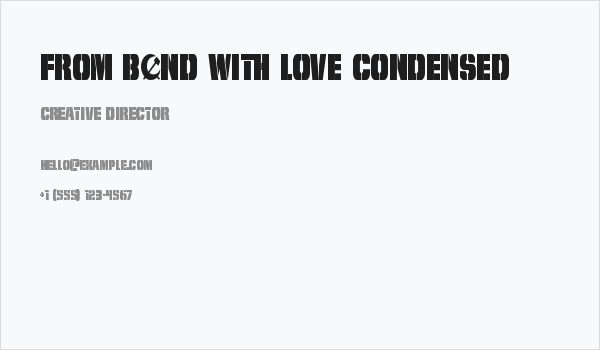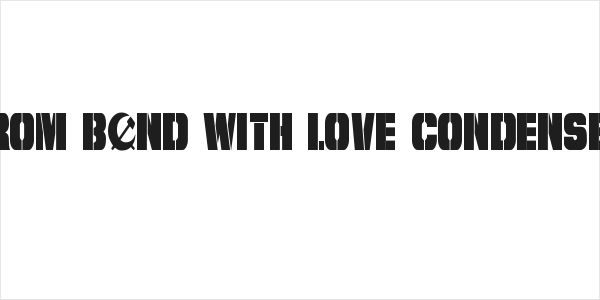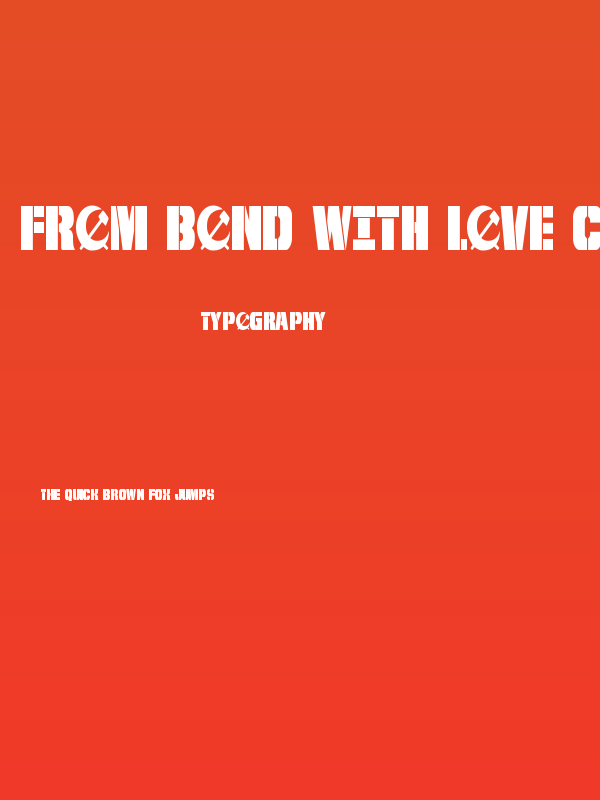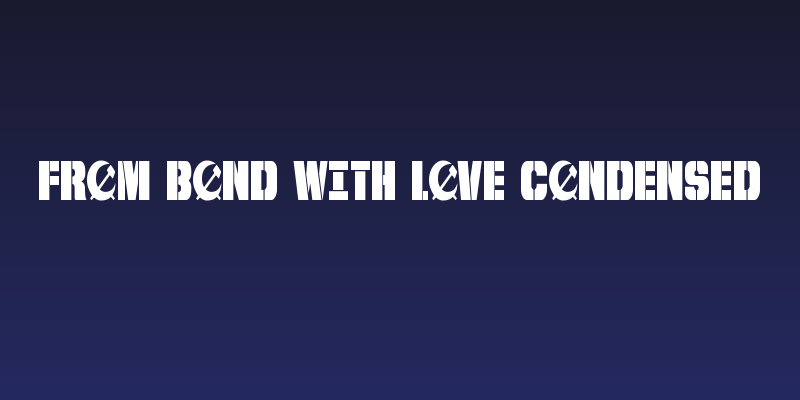
From BOND With Love Condensed Font
From BOND With Love Condensed Description
This font features a bold, condensed style with a strong presence, characterized by thick, block-like letters that create a sense of impact and authority. The uppercase letters are particularly striking, with a uniform height and width that contribute to a cohesive and powerful appearance. The numerals and special characters maintain this boldness, ensuring consistency across all elements. The font's design is reminiscent of stencil or military typefaces, offering a rugged and robust aesthetic. Its condensed nature allows for efficient use of space, making it ideal for headlines or titles where impact is essential.
Proposed ProjectsIdeal for posters, headlines, branding, and any project requiring a bold statement.